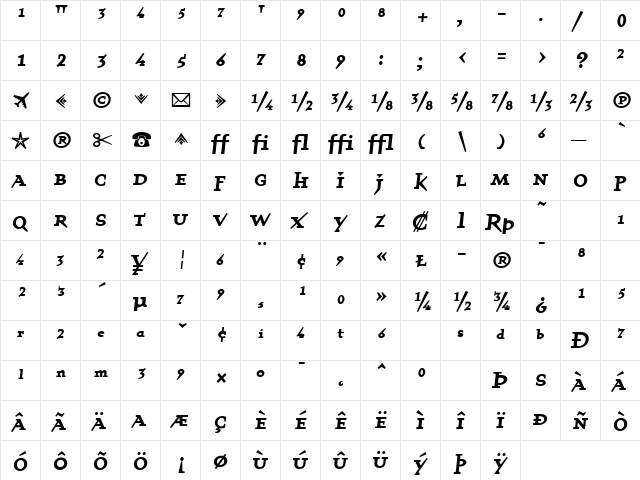
QuartetFractionsBold Regular
Design Context for QuartetFractionsBold Typeface
QuartetFractionsBold offers clean, dependable letterforms without strong stylistic allegiance, making it a practical choice for designers who need flexibility. Its bold stroke weight gives it real presence on the page.